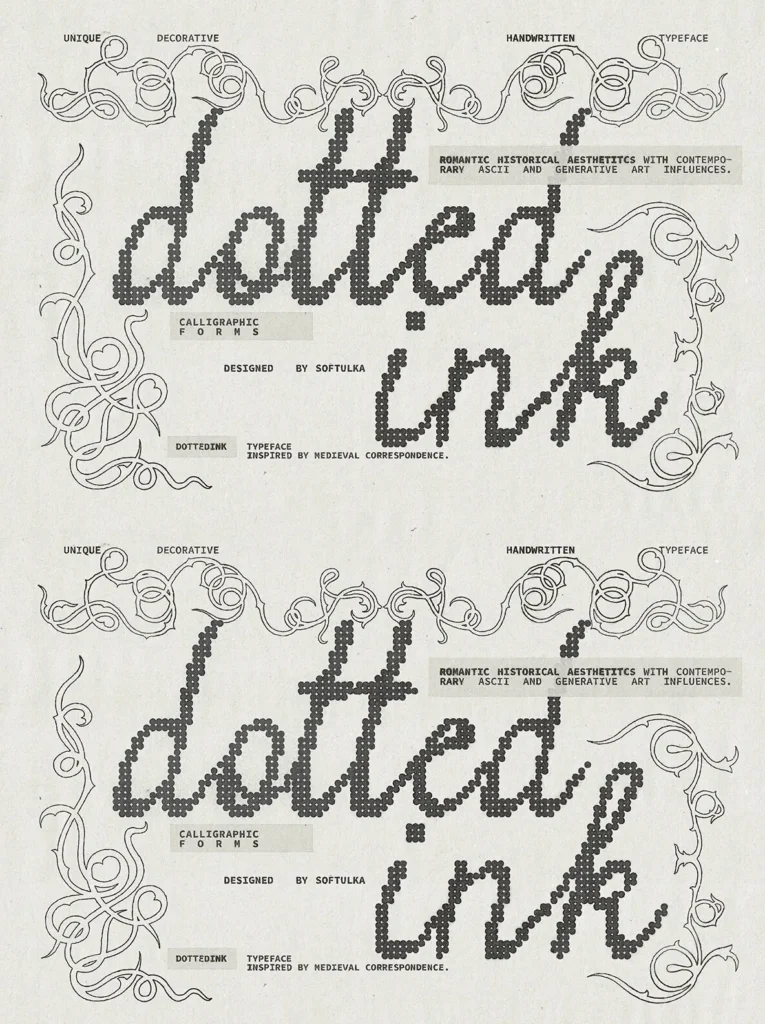
Dotted Ink — Medieval Marks Recast
Dotted Ink is a decorative handwritten typeface shaped by medieval correspondence, illuminated manuscripts, and flowing calligraphic forms. Its character comes from circular structures, dotted geometry, and procedural-inspired details, giving each letterform a distinctive rhythm that feels both historical and digital.
The typeface blends romantic historical aesthetics with contemporary ASCII and procedural art influences. Use Dotted Ink when a project needs expressive artistic typography with an old-world tone and a precise graphic edge.
Ideal Uses
Branding
Book covers
Editorial design
Invitations
Fantasy projects
Artistic typography